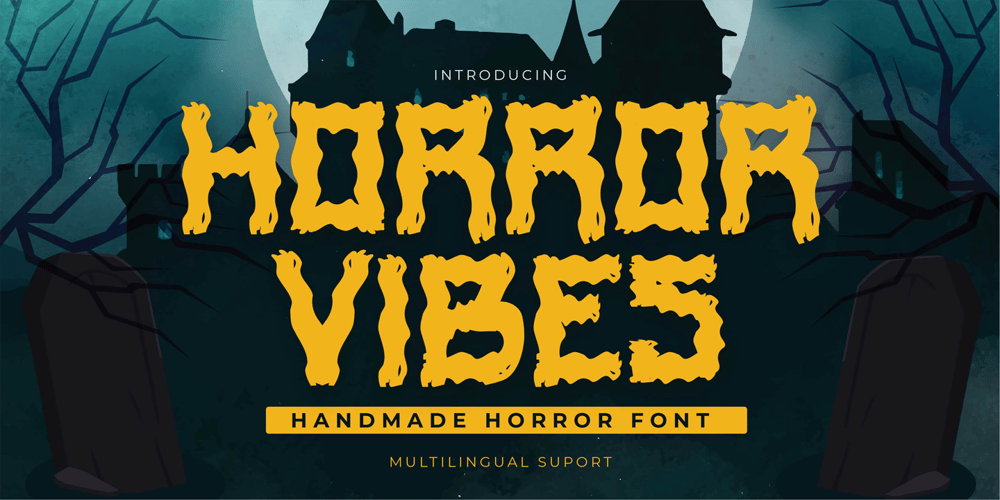
Horror Vibes
Horror Vibes font
Horror Vibes Font Family was designed by Abdul Malik Wisnu, Anang Fibriyanto and published by Gassstype. Horror Vibes contains 1 styles and family package options. Introducing of our new product the name is Horror Vibes – Handmade horror Font and Multilanguage support.Introducing of designs look modern, unique and fun. It’s perfect for labels, quotes, posters, DIY projects, branding, packaging, greeting cards, websites, photography overlays, signs, window art, scrapbooking, tags and so much more!our new product that inspired by Street Tagging, graffiti style with a fun theme very good for graffity poster, flyer, childrenbook, cartoon, comic etc